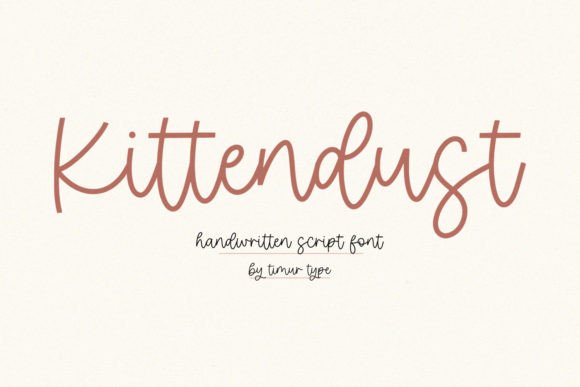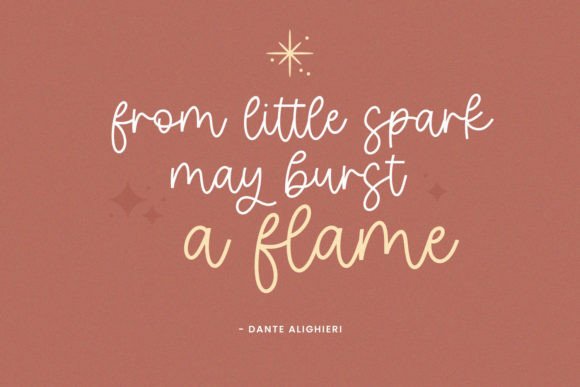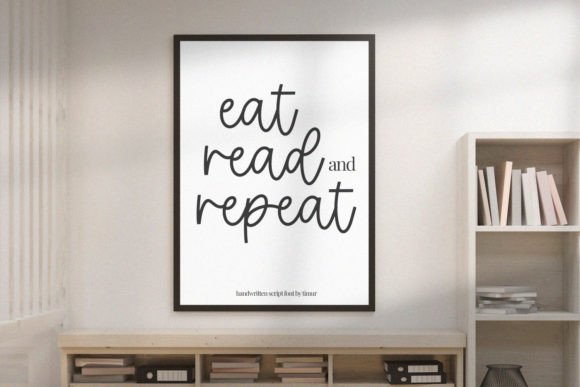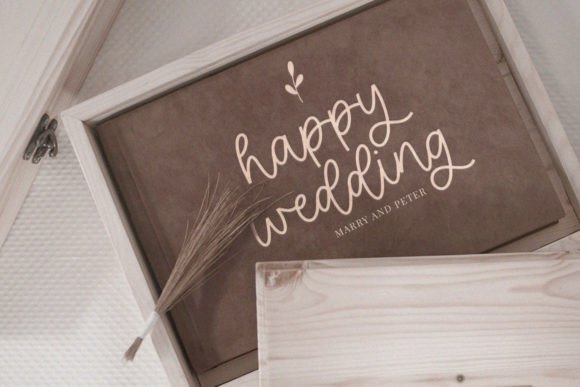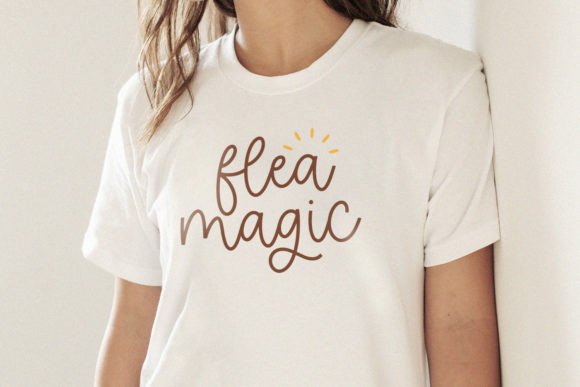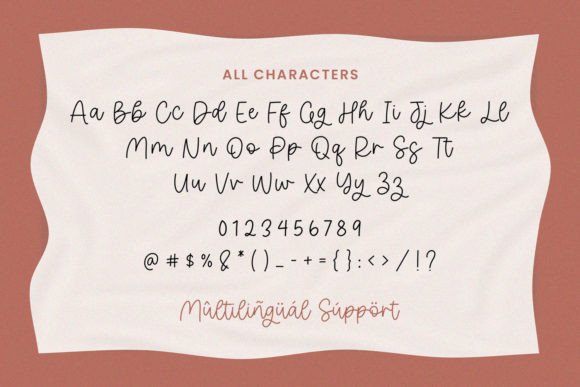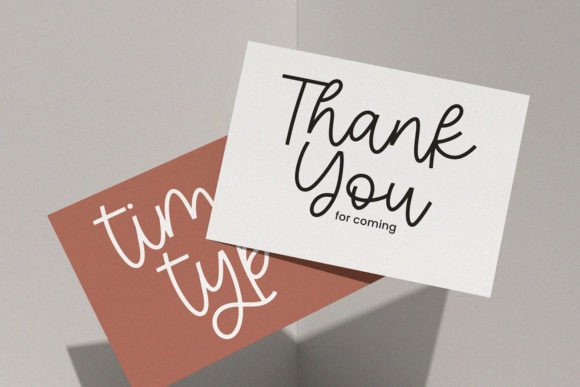
Kittendust Font
The Kittendust Font download is an exquisite handwritten typeface that combines calligraphic charm with a modern, fresh aesthetic. Masterfully designed to become a favorite among creative professionals and hobbyists, this font delivers both elegance and versatility. Whether you are working on branding, social media graphics, invitations, or digital artwork, Kittendust brings refinement and personality to your projects.
A Blend of Calligraphy and Modern Style
The Kittendust Font download draws inspiration from classic calligraphy while embracing a contemporary handwritten flow. Its graceful strokes and well-crafted curves create a balanced look that is both stylish and easy to read. This unique blend ensures that your designs feel timeless yet modern, perfect for audiences seeking elegance and sophistication.
Perfect for Creative and Professional Projects
From logos and branding to wedding invitations and event posters, the Kittendust Font download is versatile enough to enhance any type of project. Designers love its classy yet approachable appearance, which adapts well to both casual DIY creations and polished professional work. Its stylish appeal also makes it a favorite for social media content, inspirational quotes, and product packaging.
Handwritten Beauty with Readability
One of the challenges with handwritten fonts is maintaining readability. The Kittendust Font download solves this by offering smooth letterforms that are clear and elegant. It ensures that your text remains legible without sacrificing creativity. This makes it a reliable choice for everything from bold headlines to smaller text applications.
Why Choose Kittendust Font?
There are countless handwritten fonts available, but the Kittendust Font download stands out for its elegance, balance, and versatility. It captures the essence of calligraphy while remaining contemporary, giving your work a professional edge without losing charm. By choosing Kittendust, you elevate your designs with timeless style.
Elevate Your Projects with Kittendust
Typography is the foundation of design, and the Kittendust Font download offers a way to bring your projects to new heights. Its exquisite letterforms and modern elegance ensure your work leaves a lasting impression. Whether for personal use or professional branding, this font is a reliable and stylish choice that enhances every creation.